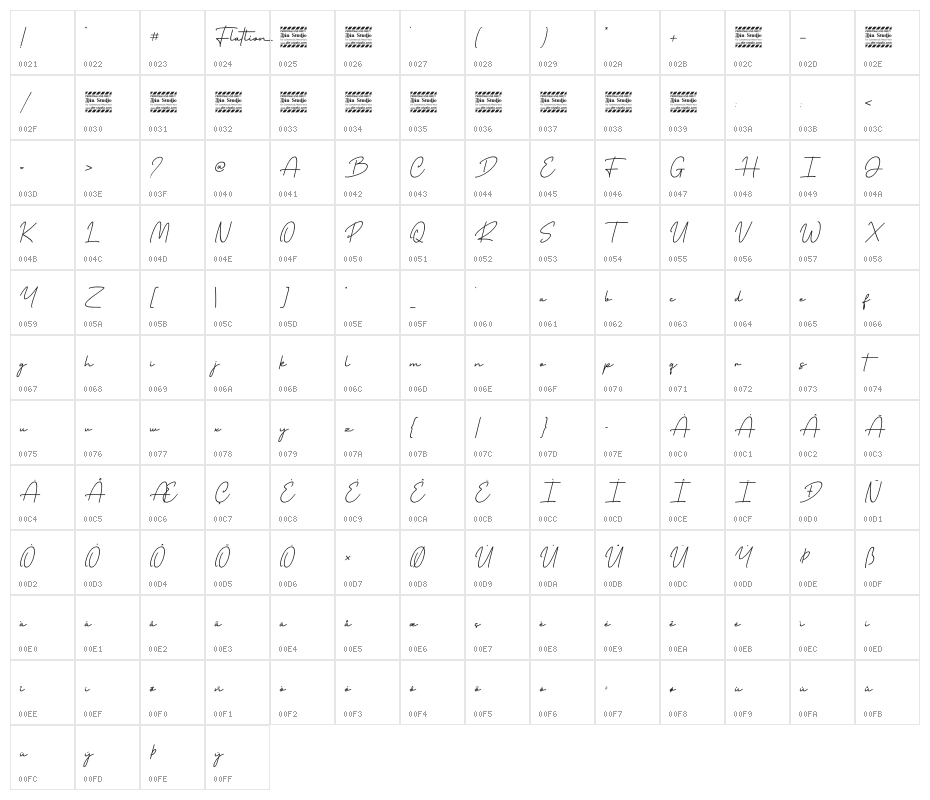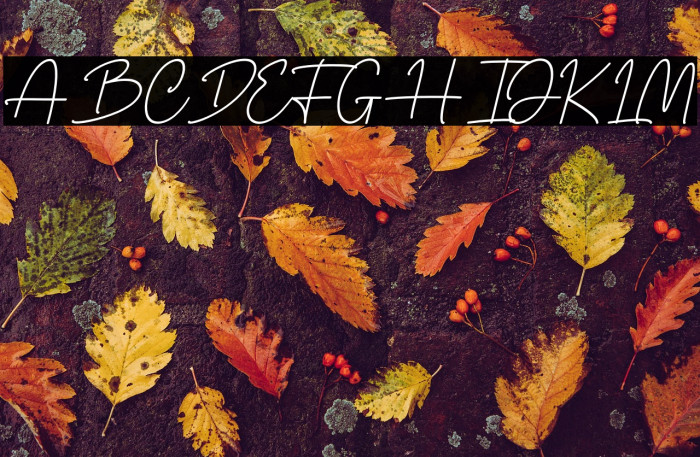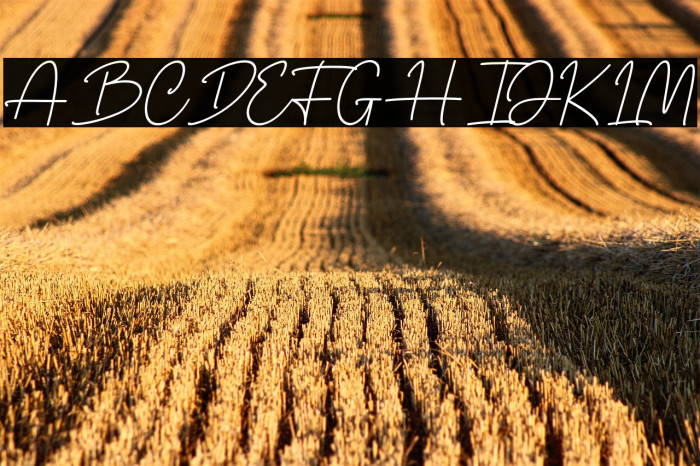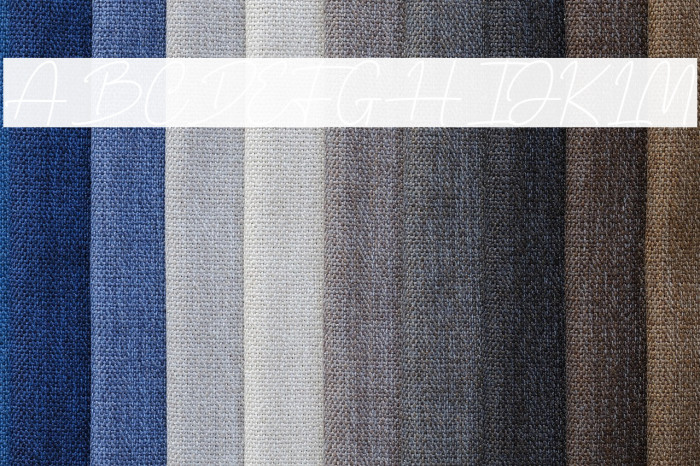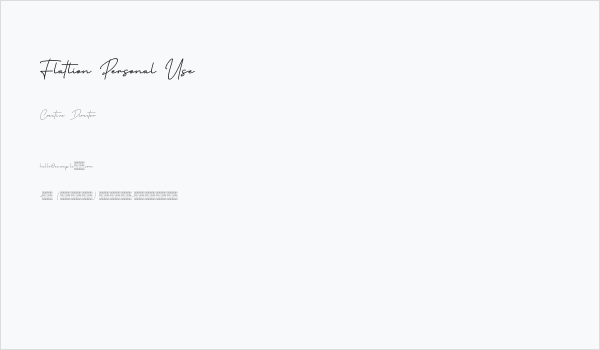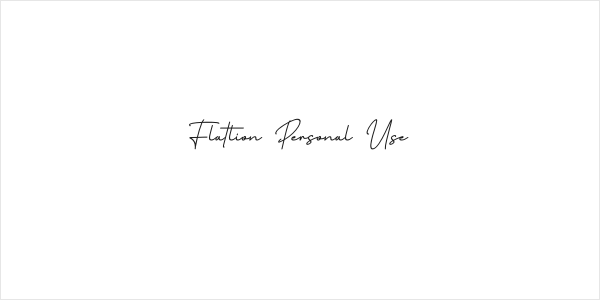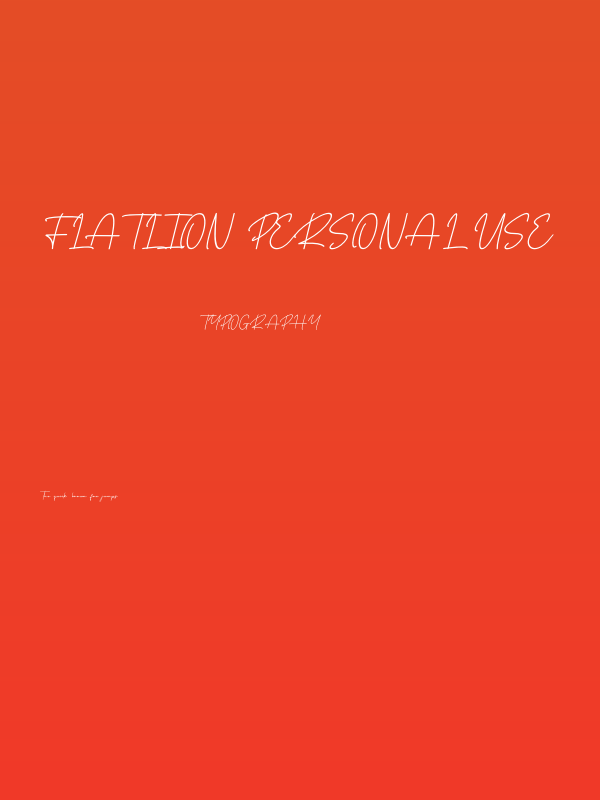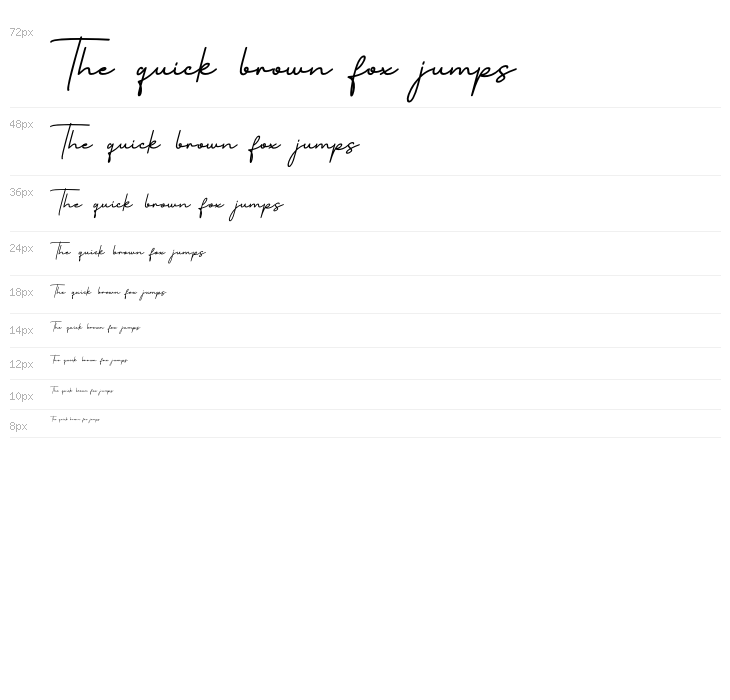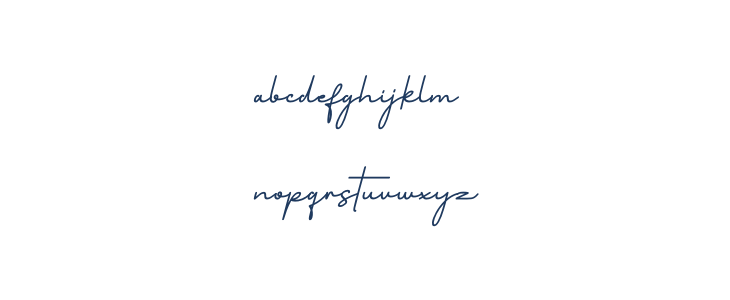
Flatlion Personal Use Font
Flatlion Personal Use Description
This font exhibits a stylish, handwritten script style with elegant, flowing lines that mimic natural handwriting. The uppercase letters are slightly larger and more pronounced, while the lowercase letters maintain a consistent, smooth flow. The characters are connected, enhancing the cursive appearance, and the overall design is both sophisticated and approachable. The font's delicate strokes and subtle curves make it ideal for projects that require a personal touch, such as invitations, greeting cards, and branding materials. The special characters are seamlessly integrated, maintaining the font's cohesive look.
| Overall Style | Elegant, Handwritten |
| Proposed Projects | Ideal for invitations, greeting cards, branding, and personal projects. |